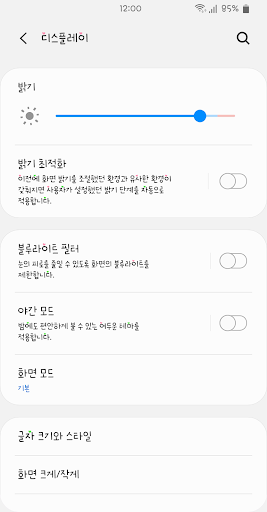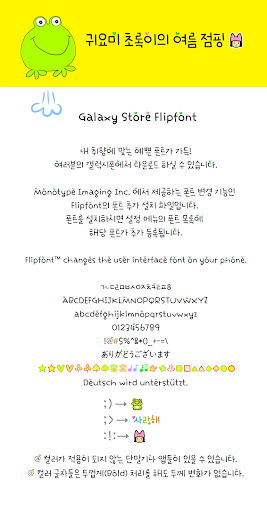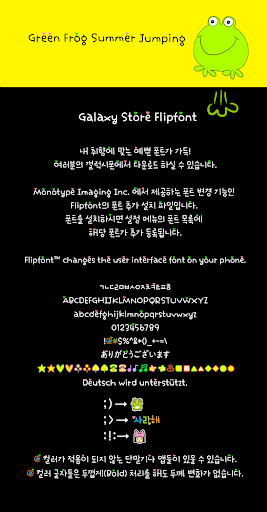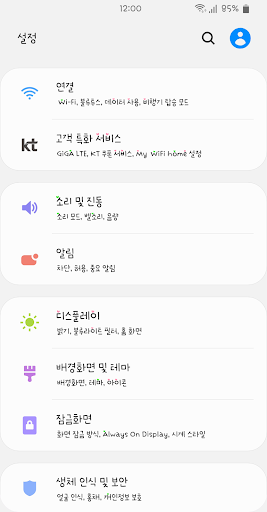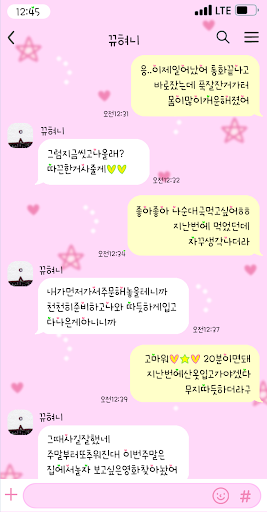
GFFrogMedium
It was made by adding color hearts to the cuteness of the green frog and the image of a naughty boy. The big eyes of the green frog are large and round gardens, and the consonant """ depicts the appearance of sitting on a lotus flower before taking off. Overall, it is a font with strong personality like a pop-up tree frog image, and it has a free position and shape of the lettering and has an even edition, so it is a font full of joy to read and write. (Depending on Android OS or app, color dingbet may not be supported.)